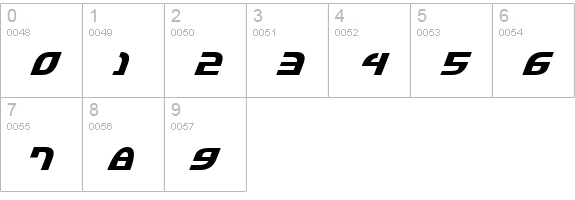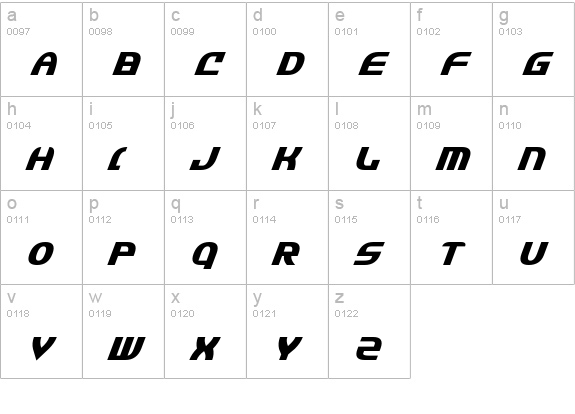
Jannisaries Bold Italic is a strong, high-contrast, italic variant in the Jannisaries typeface family \xE2\x80\x94 well suited to headlines, attention-grabbing titles, and strong calls-to-action.
Introducing Jannisaries Bold Italic, a striking and captivating font that exudes confidence and sophistication. With its bold and italicized letterforms, this font commands attention and instantly adds a touch of elegance to any design project. Jannisaries Bold Italic is the perfect choice for those seeking a font that combines strength and style. Its unique and meticulously crafted letterforms boast clean lines and sharp angles, making it stand out among the crowd. Whether used for headlines, logos, or branding materials, this font is sure to make a lasting impression. But what sets Jannisaries Bold Italic apart is not just its impeccable design, but the fact that it is available for free. Yes, you read that right – this exceptional font can be freely downloaded at FontsMarket.com. With just a few clicks, you can have access to this powerful typeface and elevate your designs without incurring any cost. Furthermore, Jannisaries Bold Italic offers versatility and adaptability, making it suitable for a wide range of projects. From fashion and beauty to technology and corporate branding, this font effortlessly adapts to various contexts, ensuring that your message is delivered with utmost impact. So why wait? Download Jannisaries Bold Italic today and unlock the potential to create visually stunning designs that leave a lasting impression. With its bold and italicized charm, this font is sure to captivate your audience and elevate your creative endeavors to new heights. Don't miss out on this incredible opportunity to enhance your design arsenal with a font that is both striking and freely available at FontsMarket.com.